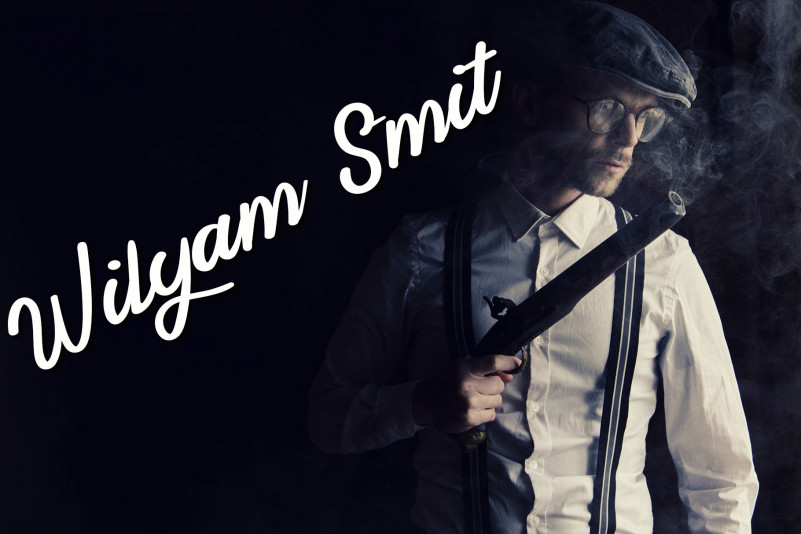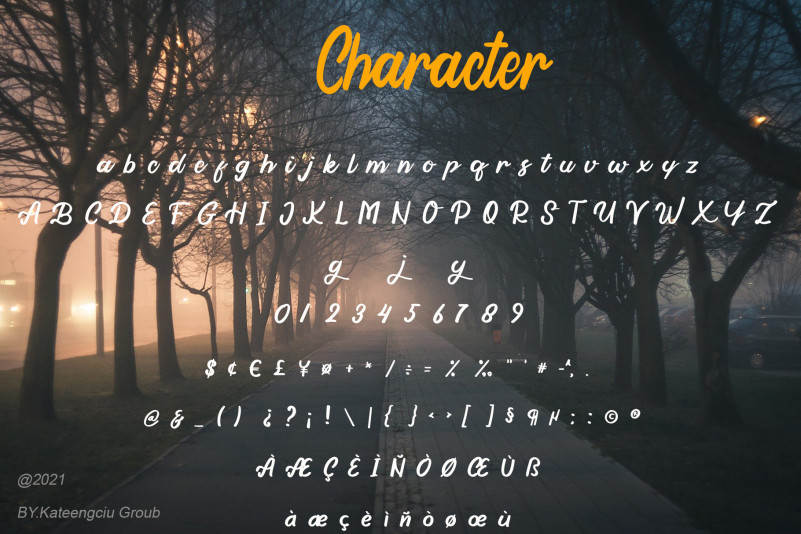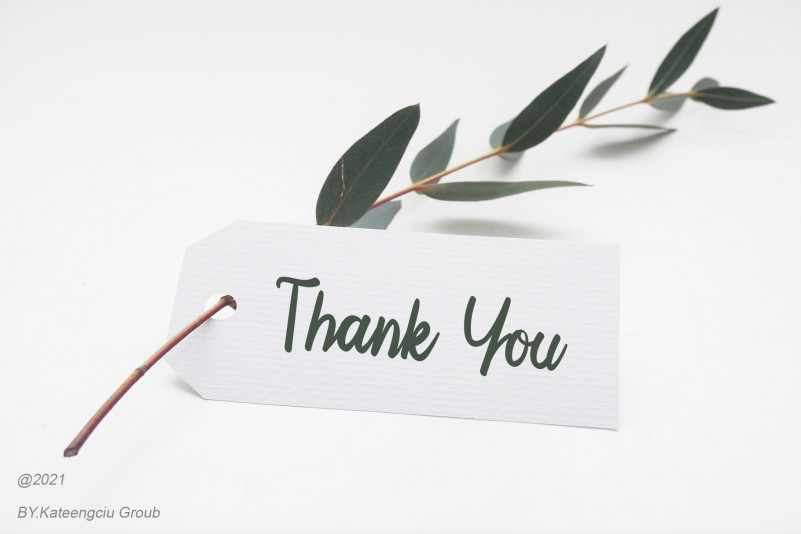
Carfreeday Font
Carfreeday Script Font
This is a sweet, all round and flexible handwritten font. Warm, quirky and jolly, this font will turn each of your project ideas into real works of art. Have fun with this beautiful font and explore its endless variations.